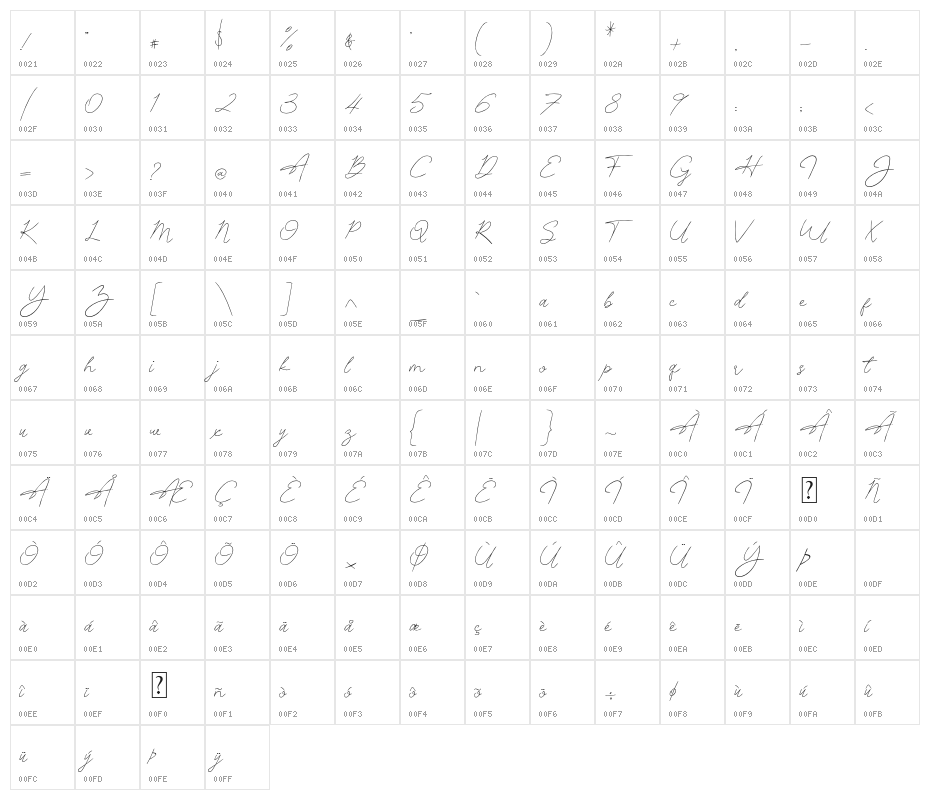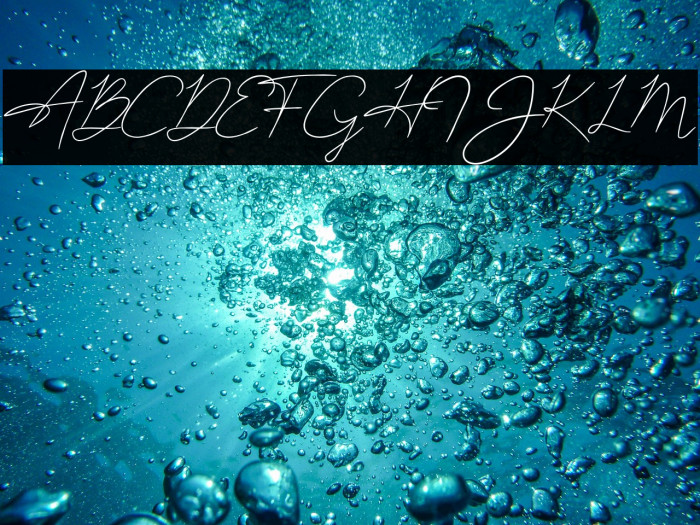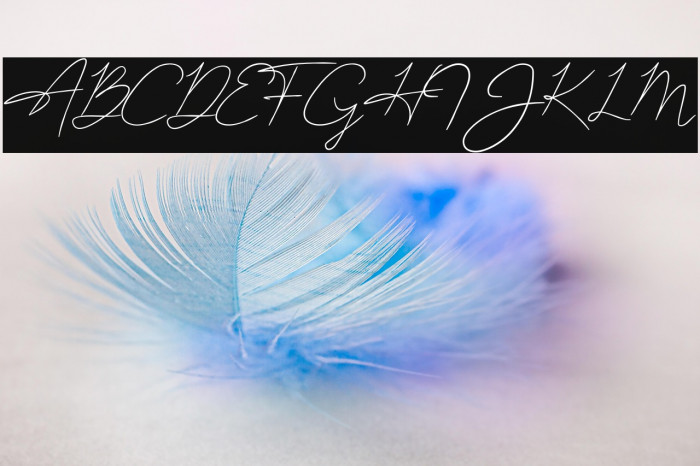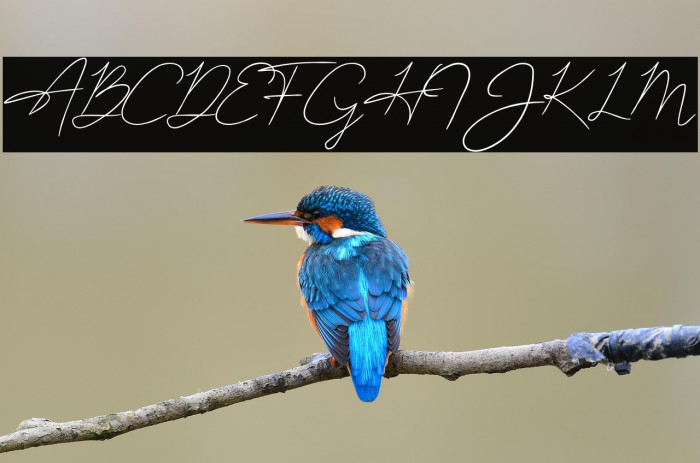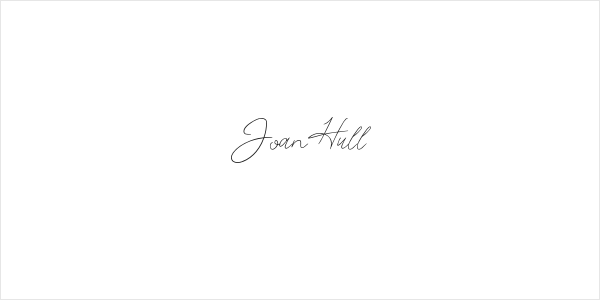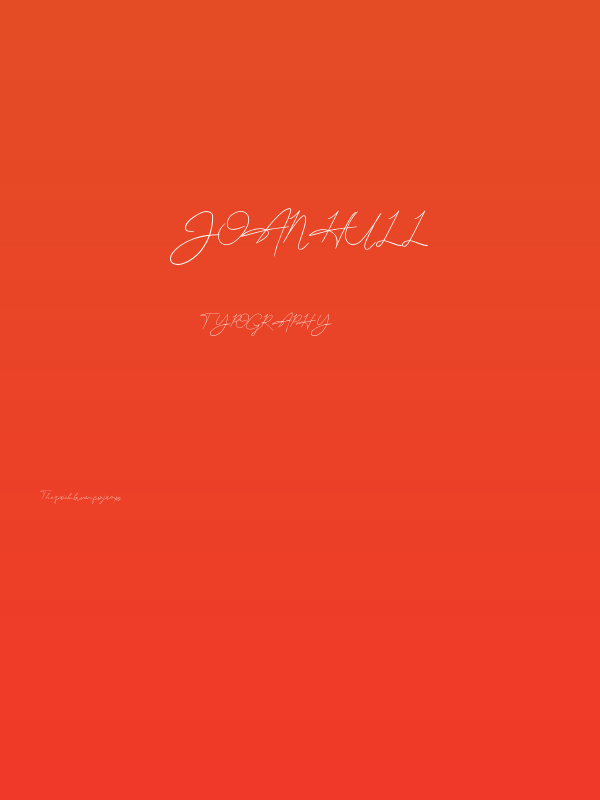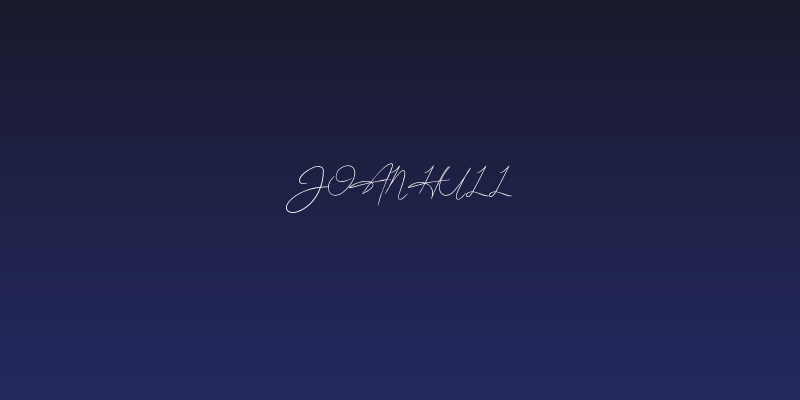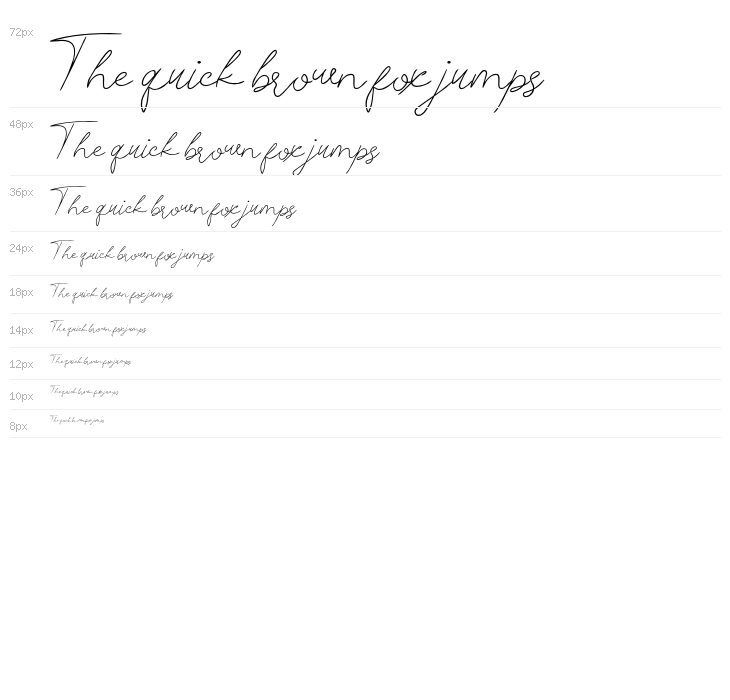
JoanHull Font
JoanHull Description
This elegant script font features a fluid and graceful design, characterized by its flowing, interconnected strokes that mimic natural handwriting. The letters are slightly slanted, adding a dynamic and sophisticated touch. The uppercase letters are ornate, with sweeping curves and loops, while the lowercase letters maintain a more restrained yet still stylish appearance. The numbers and special characters are consistent with the overall aesthetic, providing a cohesive look. This font exudes a sense of elegance and refinement, making it ideal for projects that require a personal or artistic touch.
| Overall Style | Elegant, Artistic |
| Use Case | Invitations, Personal branding, Artistic projects |
| Proposed Projects | Ideal for wedding invitations, greeting cards, personal branding, and artistic projects. |